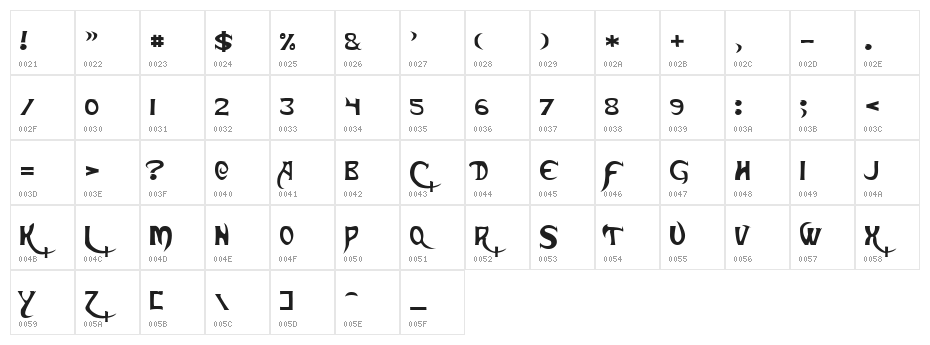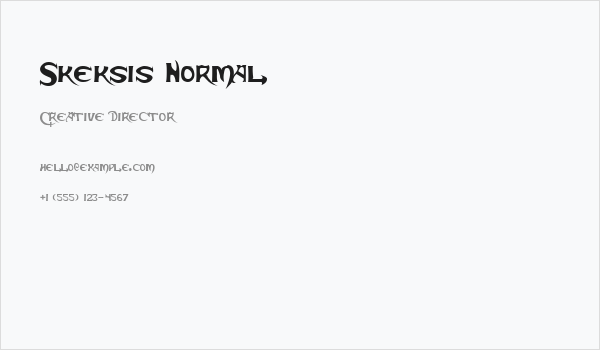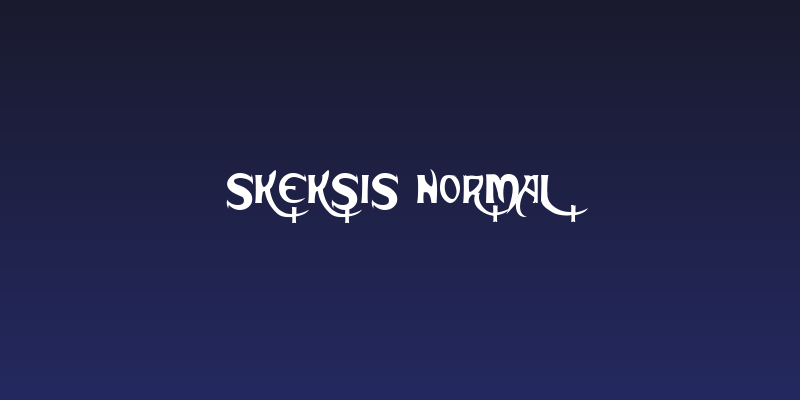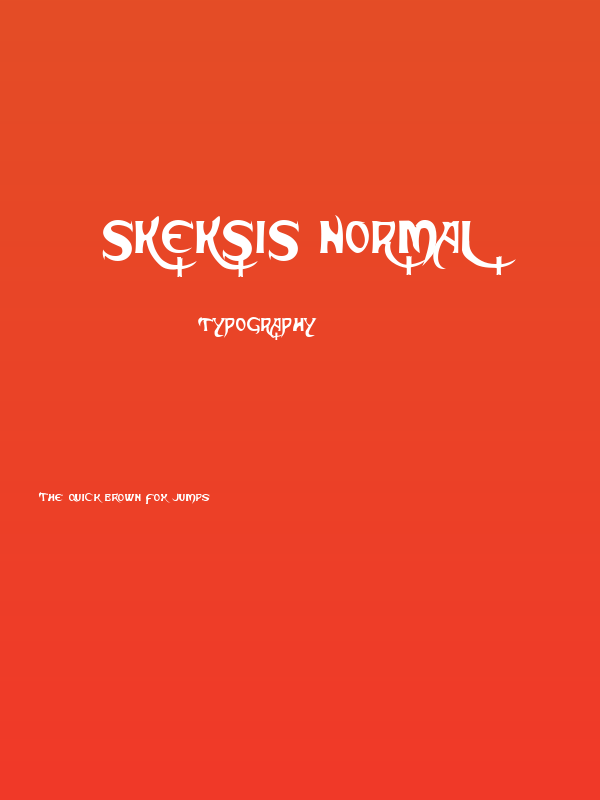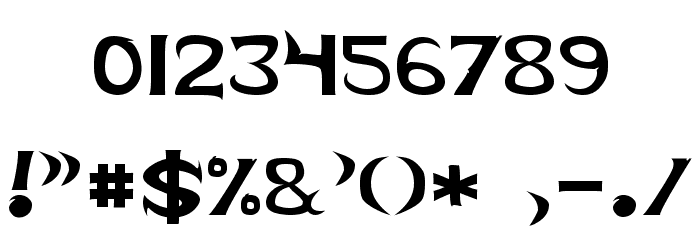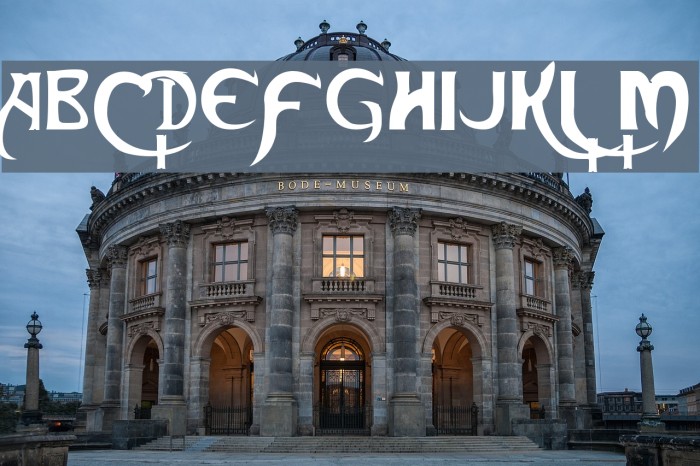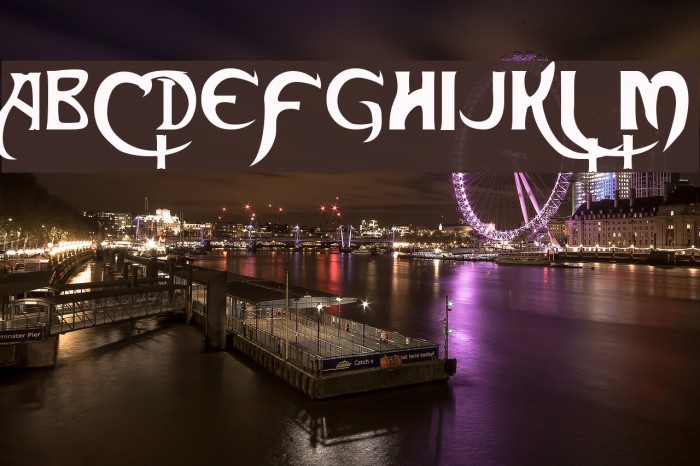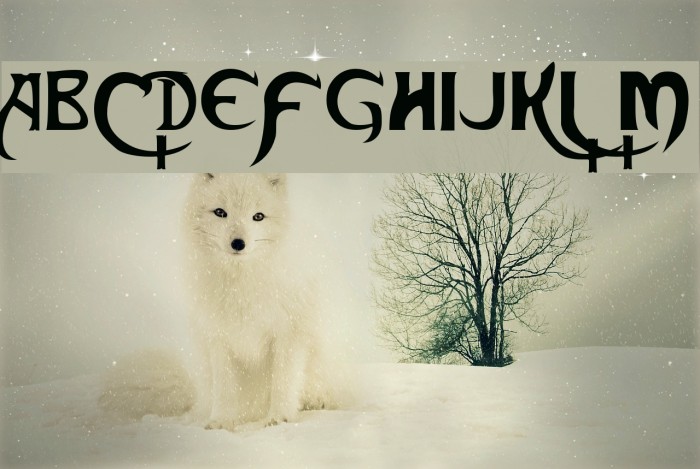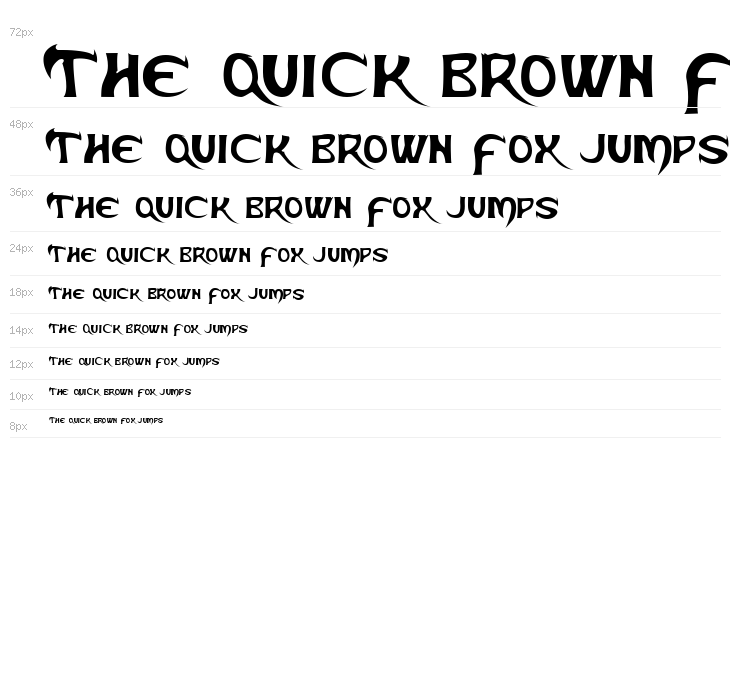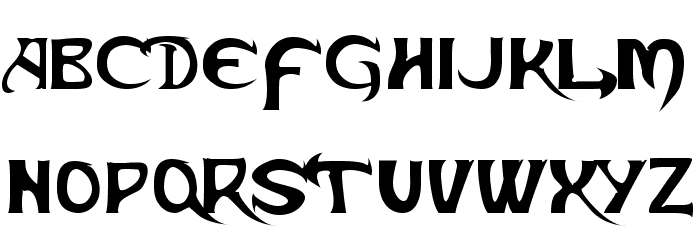
Skeksis Normal Font
Skeksis Normal Description
This font features a unique and intricate design with sharp, angular edges and dramatic curves, reminiscent of a fantasy or gothic style. The characters are bold and striking, with a high level of detail that gives them a distinct and memorable appearance. The uppercase and lowercase letters maintain a consistent style, with exaggerated serifs and decorative elements that add to the overall aesthetic. Numbers and special characters are equally stylized, ensuring a cohesive look across all glyphs. This font is perfect for projects that require a touch of drama and flair.
| Proposed Projects | Ideal for fantasy-themed designs, book covers, movie posters, video game graphics, and branding that requires a dramatic touch. |